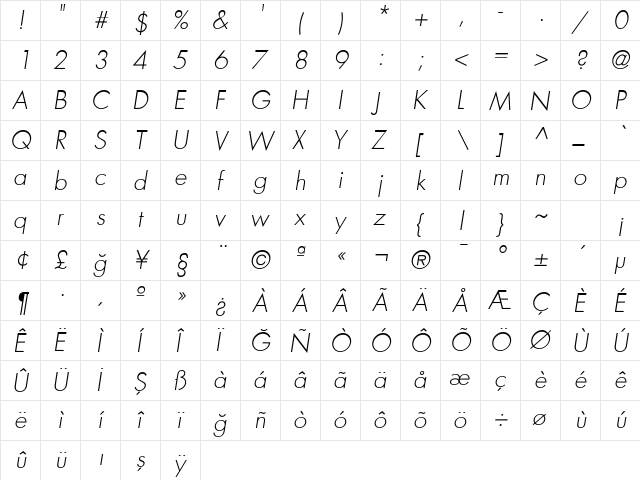
FuturaLightItalic Regular Font Preview
Design Context for FuturaLightItalic Typeface
FuturaLightItalic channels digital-age aesthetics through its sharp, structured letterforms — ideal for brands that want to signal innovation. The dynamic lean of this cut emphasises speed and emphasis in any layout. Its slender proportions lend an understated elegance to any composition.
Pro Tip: Try FuturaLightItalic with generous letter-spacing in UI labels and navigation — the geometric forms benefit from room to breathe.